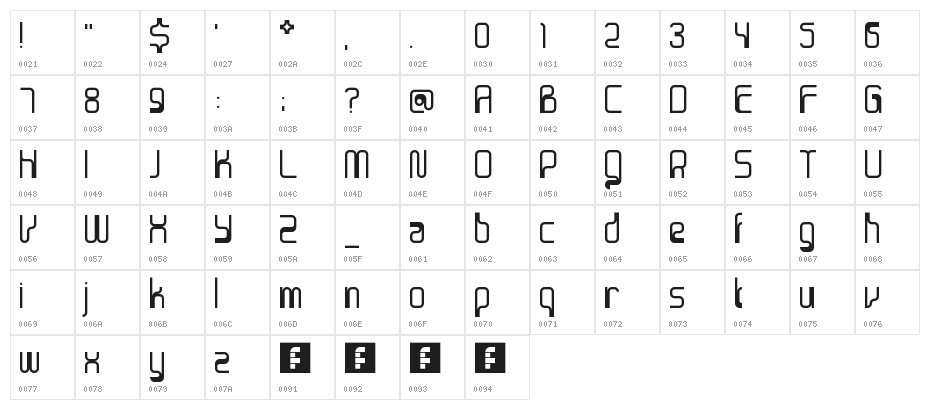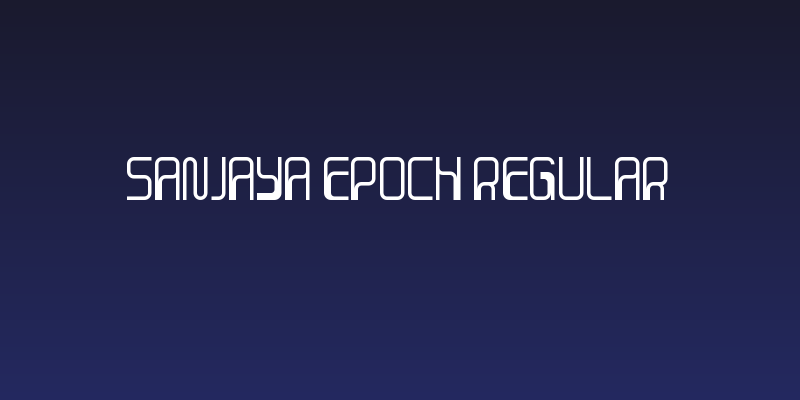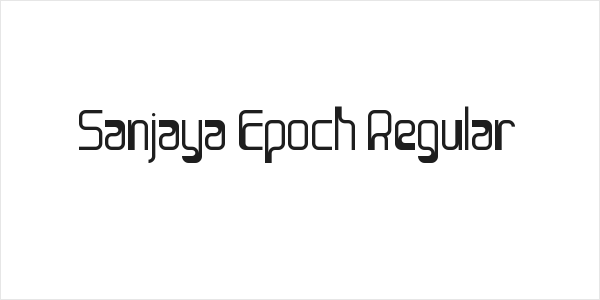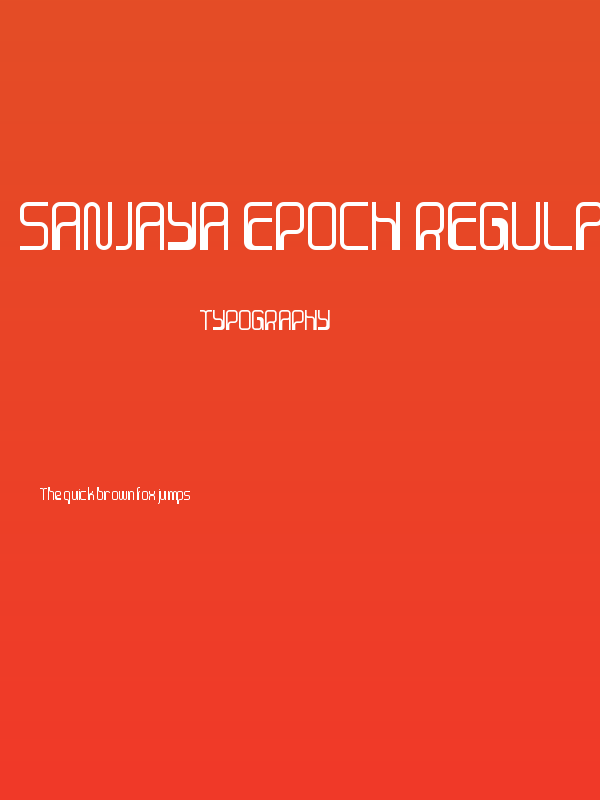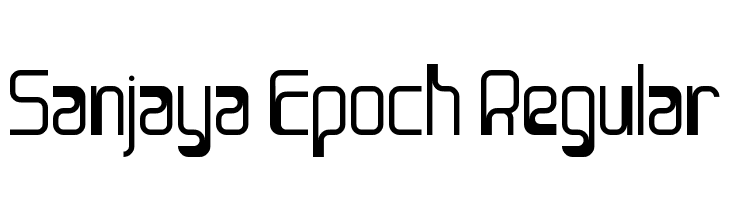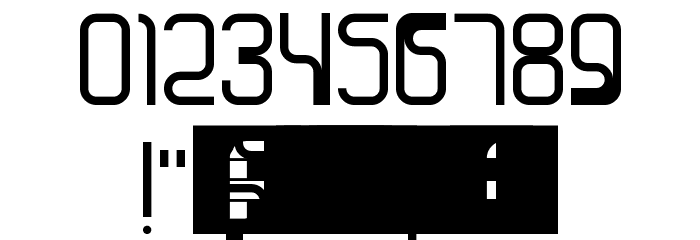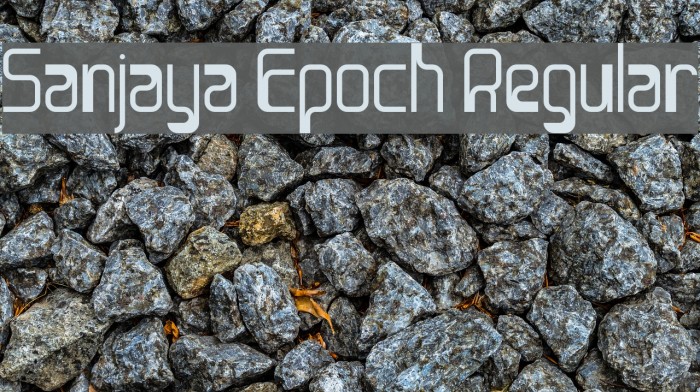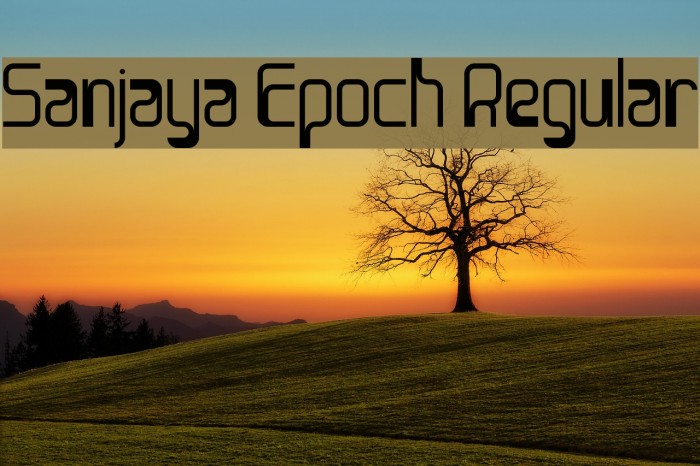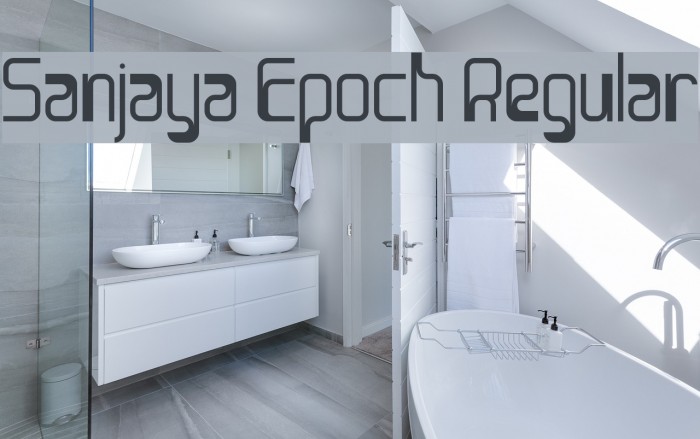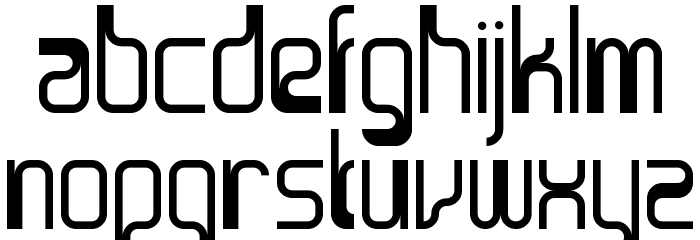
Sanjaya Epoch Regular Font
Sanjaya Epoch Regular Description
This font features a modern and geometric design with a unique blend of rounded and straight edges. The uppercase letters are characterized by their uniform height and consistent stroke width, giving them a sleek and contemporary appearance. The lowercase letters maintain a similar style, with some characters exhibiting distinctive curves and angles that add visual interest. The numerals are bold and clear, ensuring readability. Special characters are designed to complement the overall aesthetic, making this font versatile for various applications.
| Use Case | Headlines, Logos, Digital Media |
| Proposed Projects | Ideal for branding, advertising, and digital media projects that require a modern and stylish look. |